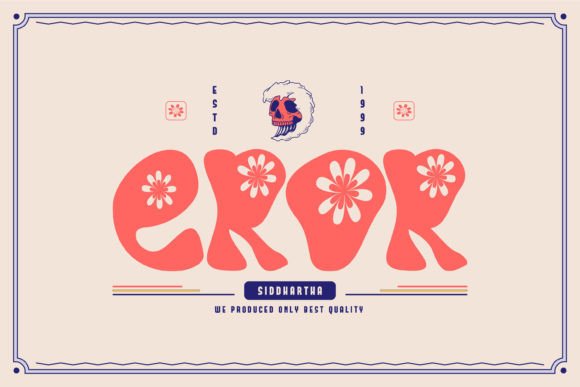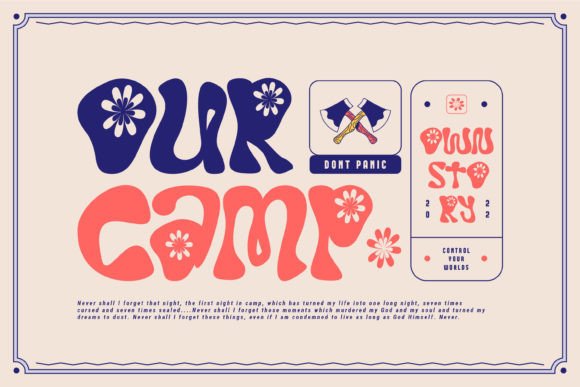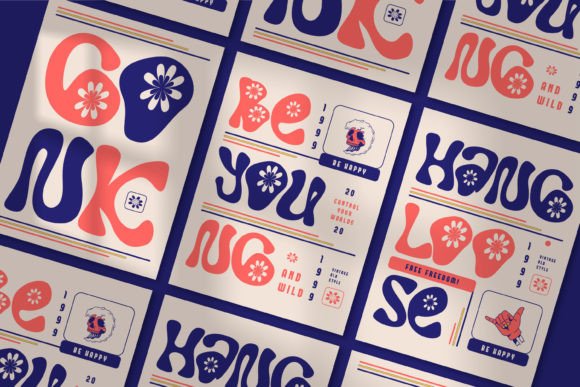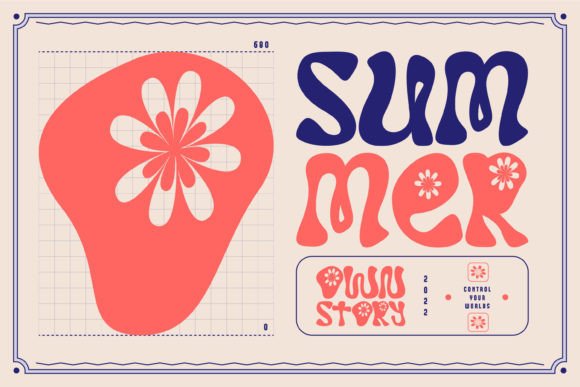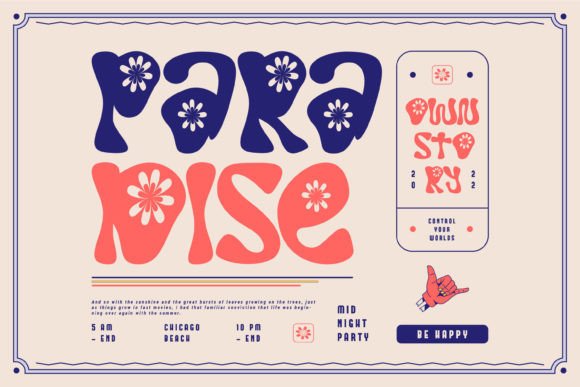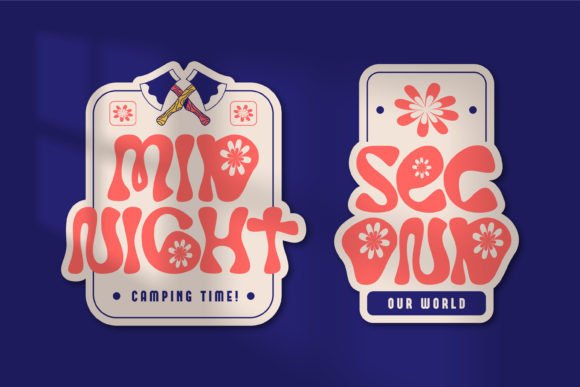
Get Ready to Groove with Khoj Font
Have you ever stumbled upon an old vinyl record in your attic and been instantly transported back to a bygone era? That’s the magic of Khoj Font – a fun, retro display font that will make you feel like you’re stuck in the 70s, and loving every minute of it.
Khoj Font is a whimsical and groovy typeface that’s perfect for creating all your favorite hippie designs. Whether you’re a seasoned designer or just starting out, this font is a valuable addition to your toolkit. With its playful vibe and retro charm, Khoj Font is sure to add a unique touch to your projects.
So why not give Khoj Font a try and see what kind of groovy designs you can create? Trust us, you won’t be disappointed!
Khoj Font Key Features
- Font Family: Khoj Font is a custom-designed font family that includes 6 styles (Regular, Italic, Bold, Bold Italic, Extra Bold, and Extra Bold Italic)
- Character Set: Khoj Font includes a comprehensive set of characters, including Latin, Devanagari, and other languages, making it suitable for multilingual applications
- Unique Characteristics: Khoj Font features a unique blend of traditional and modern design elements, making it an ideal choice for applications that require a distinctive and sophisticated look
Khoj Font Review
Initially, I was drawn to Khoj Font due to its unique blend of modern and traditional elements. The combination of bold lines and intricate details ✨ makes it an attractive choice for those looking to add a touch of cultural flair to their designs.
One of the standout features of Khoj Font is its versatility. It comes in a range of weights and styles, from bold and playful to elegant and refined ✨. This makes it an excellent choice for a variety of projects, from branding and packaging to editorial and digital design.
- ⚠️ The font may not be suitable for very small text sizes, as the intricate details can become difficult to read.
- ⚠️ The font’s unique style may not appeal to everyone, and some users may find it too ornate or busy.
Overall, Khoj Font is a unique and versatile font that can add a touch of cultural flair to a wide range of designs. While it may have some limitations, its strengths make it an excellent choice for designers looking to add some visual interest to their work.
For optimal results, use Khoj Font in bold or italic styles to emphasize text.
Use Khoj Font for creative projects, such as logos, posters, or infographics.
It’s also suitable for digital products, like e-books, presentations, and websites.